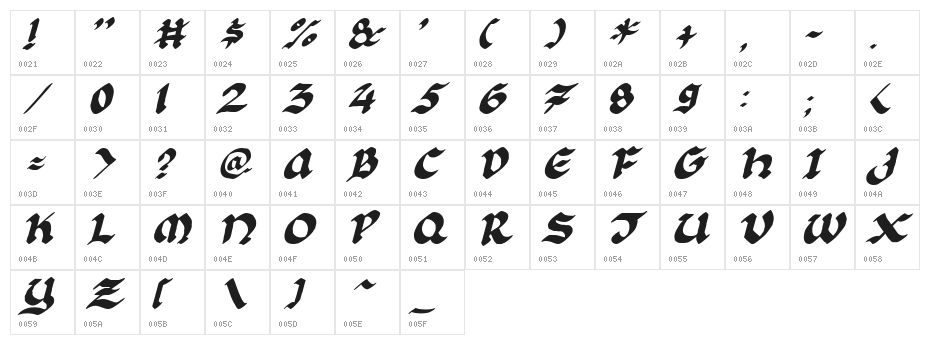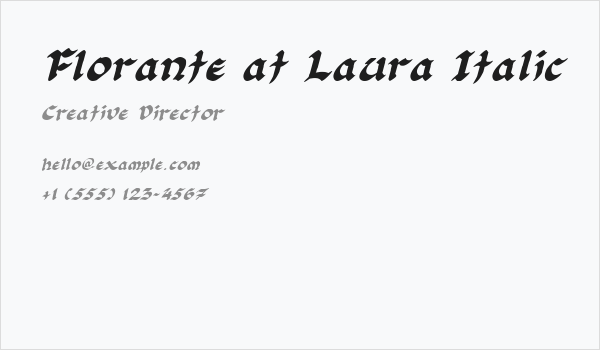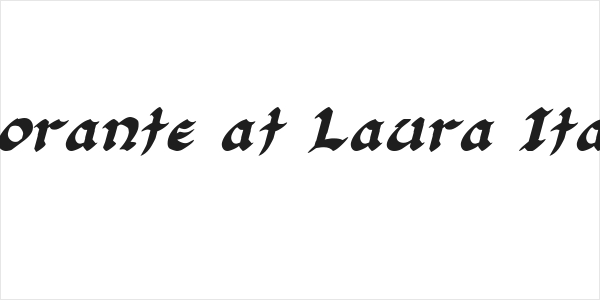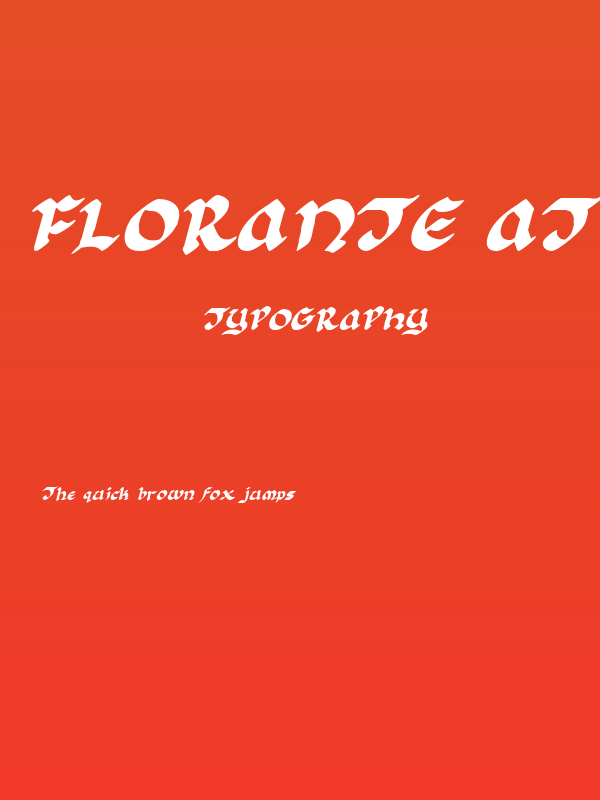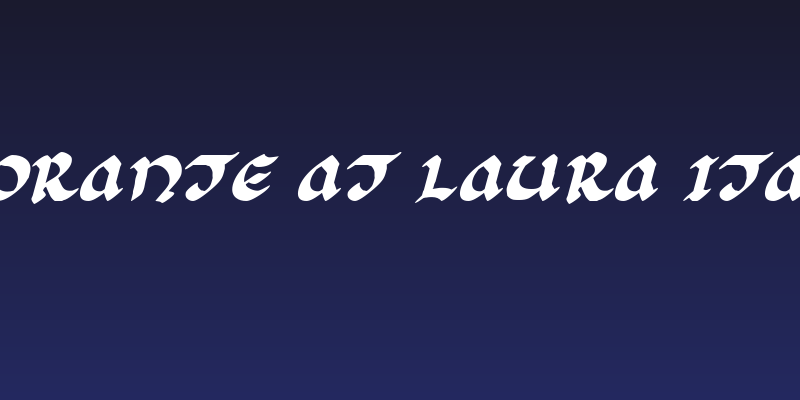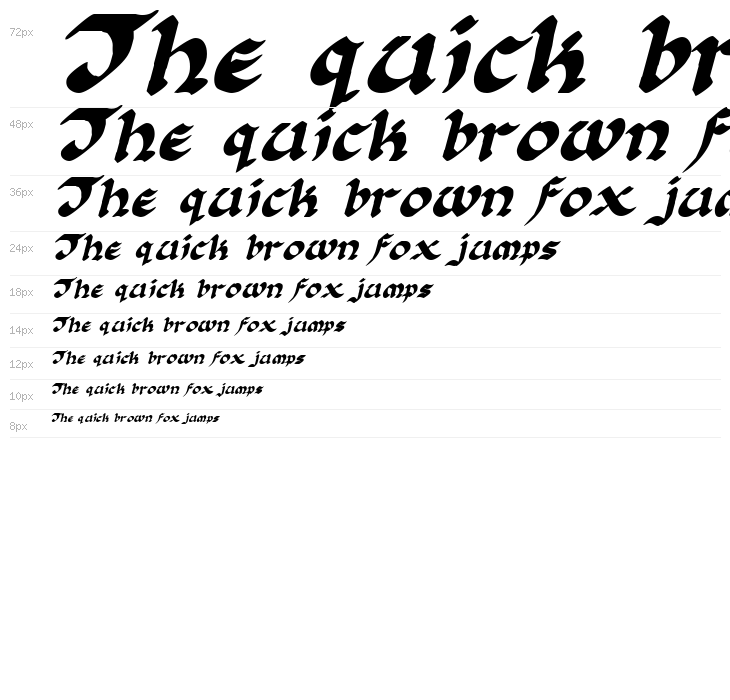
Florante at Laura Italic Font
Florante at Laura Italic Description
This font features a bold and dramatic style reminiscent of traditional calligraphy. The characters are crafted with sharp, angular strokes that give a sense of movement and elegance. The uppercase and lowercase letters maintain a consistent flow, with distinctive flourishes that enhance their visual appeal. The numerals and special characters are equally ornate, making them suitable for decorative purposes. The overall design is both classic and expressive, capturing the essence of historical scripts while remaining legible.